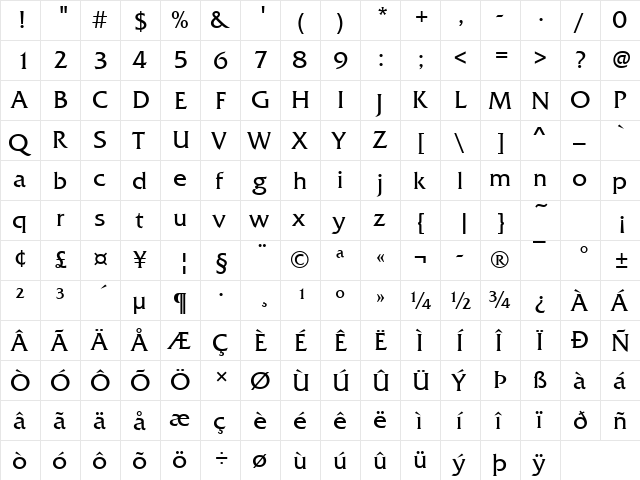
FrodiT Regular
Design Context for FrodiT Typeface
FrodiT offers clean, dependable letterforms without strong stylistic allegiance, making it a practical choice for designers who need flexibility.